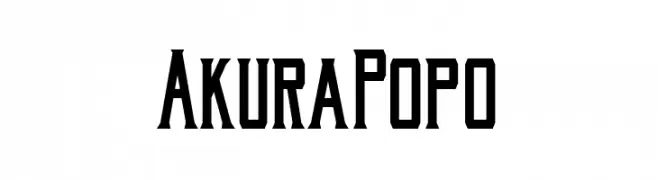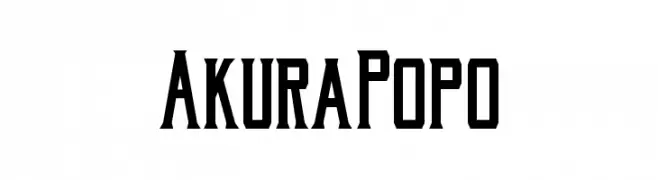
• Akura Popo
A bold, angular font with a strong geometric structure and cohesive design.
• AkuraPopo
A bold, angular font with a modern and edgy style.